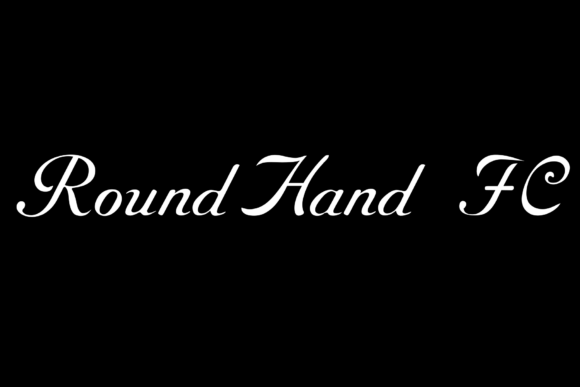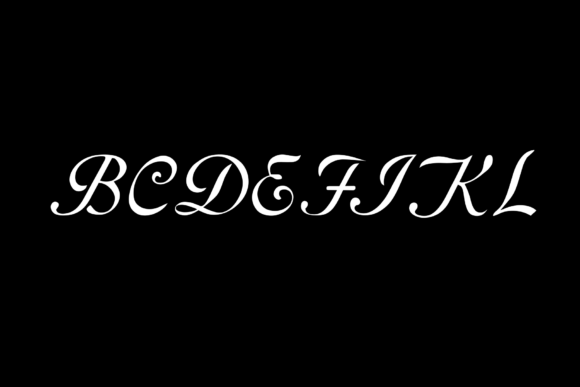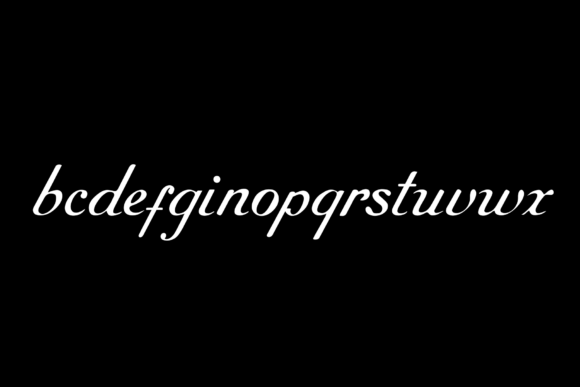
Round Hand Fc Font
About the Round Hand Fc Font
Unleash your creativity with Round Hand Fc Font, a versatile font perfect for a wide range of applications. Immerse yourself in the charm of RoundHand FC, a beautifully naive handwriting font. Breathtaking in its simplicity, this font has the capability of infusing an array of brand identities with its unique flavor. From stamping your brand’s identity on logos to serving as a stylish backdrop for inspirational quotes, RoundHand FC never fails to leave an impact. Revamp your social media graphics or give your t-shirts, tote bags, cards, and banners a distinctive touch with this font. Trust the effortless, hand-drawn appeal of RoundHand FC to bring your creative projects to life, adding an element of spontaneous elegance to all your design endeavors.
Round Hand Fc Font Usage Examples
Round Hand Fc Font Example